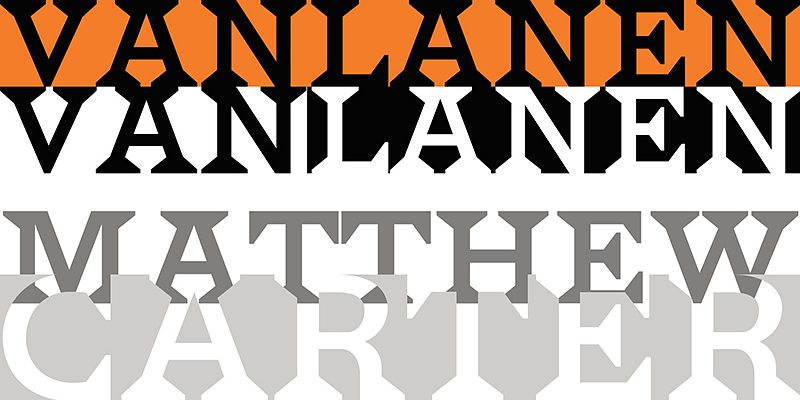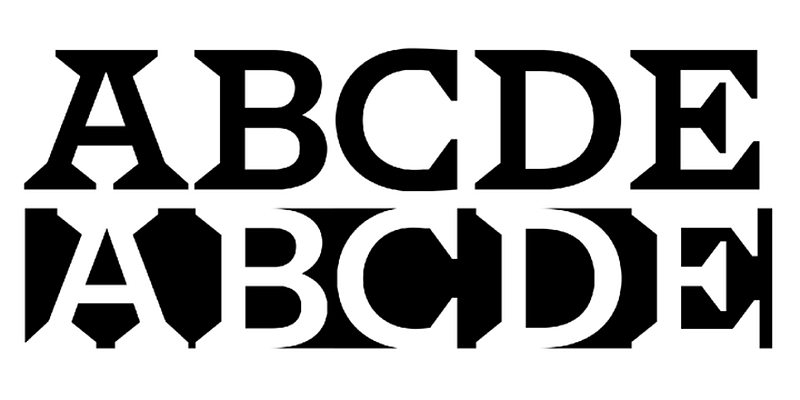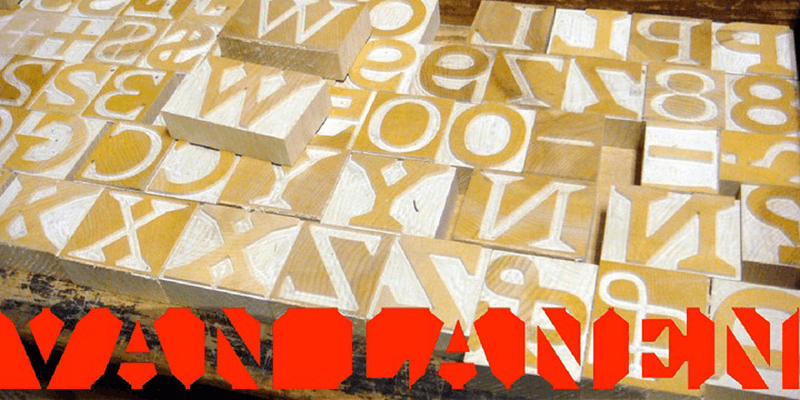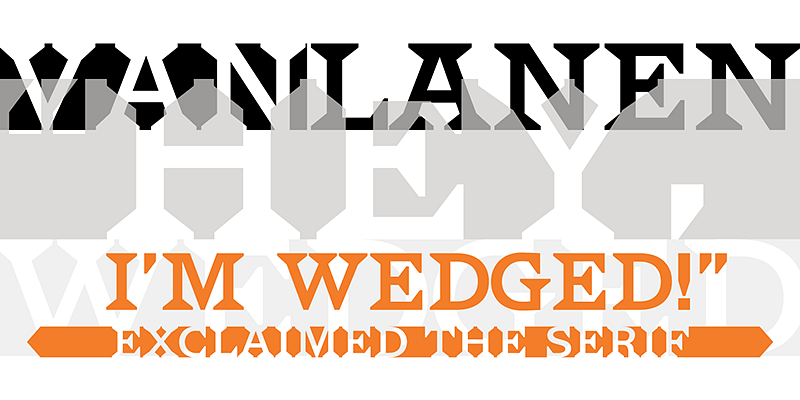
HWT Van Lanen was designed to be a two-part chromatic type to be cut specifically in wood. The design by Matthew Carter recalls Antique Latin wood type, but with a refined sensibility.